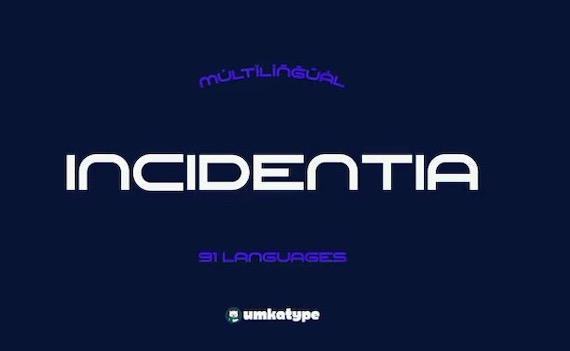
Incidentia is a great and fresh display font family that was designed by Alper Çakıcı and published by Umka Type. It includes 1 unique style along with Extended Latin and Cyrillic characters. It is created for poster, web, brand, and social media designs.
Incidentia Display Font